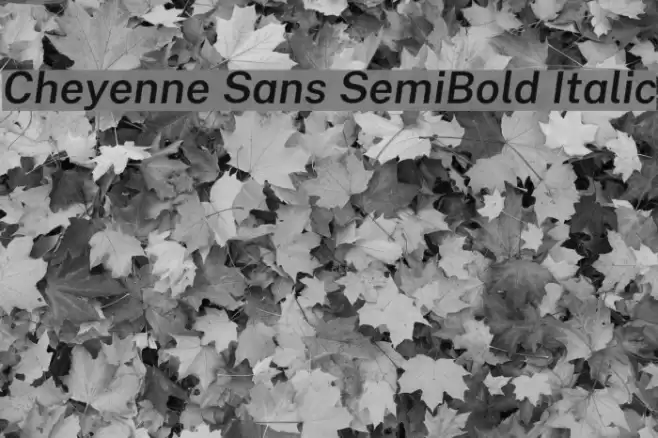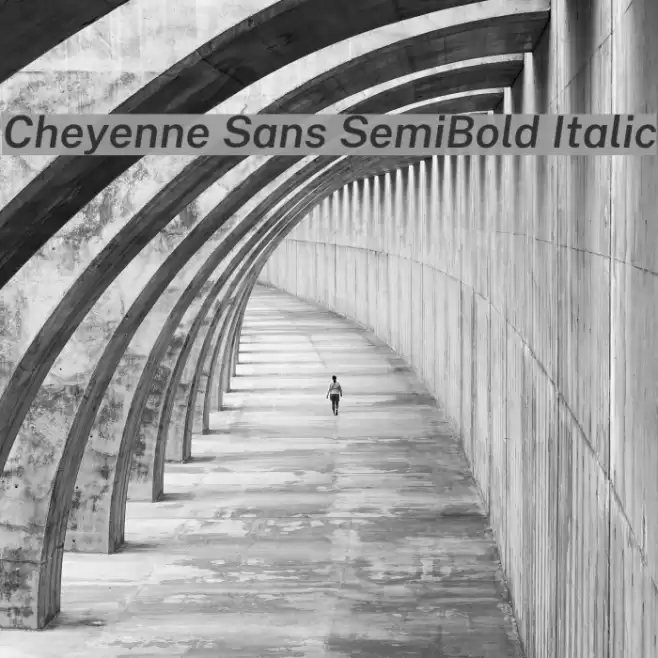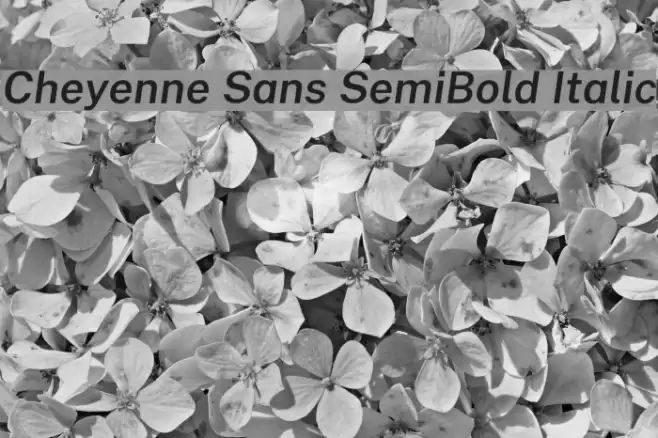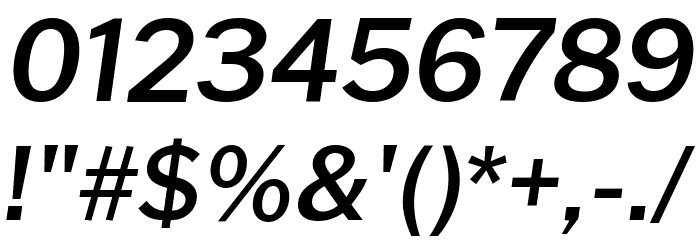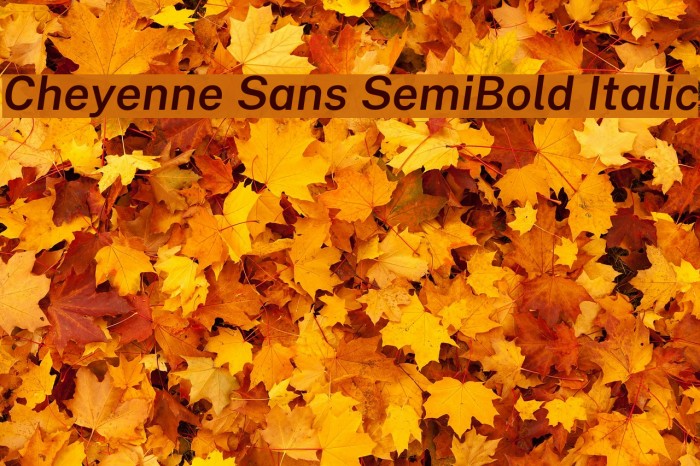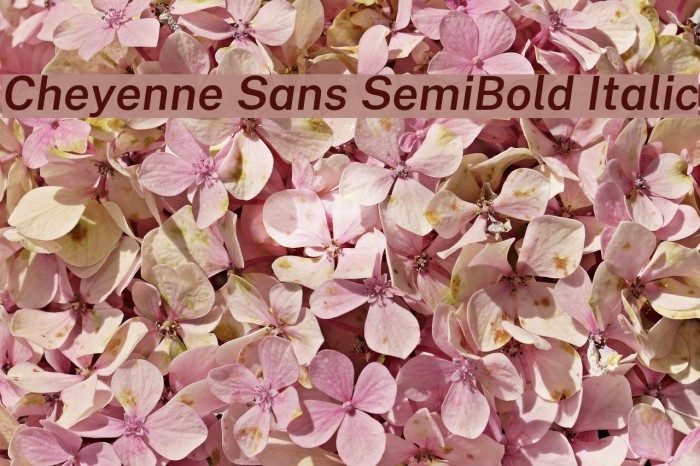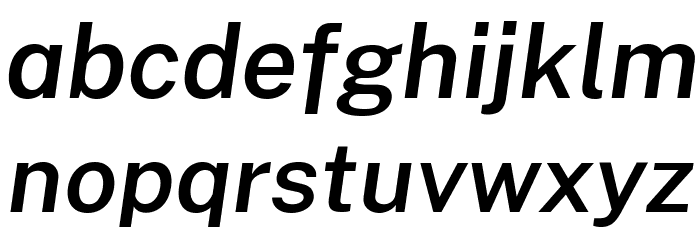
Cheyenne Sans SemiBold Italic Font
Cheyenne Sans SemiBold Italic Description
This font features a sleek, modern sans-serif design with a semi-bold weight and italic style. The characters are slightly slanted, giving a dynamic and forward-moving appearance. The strokes are consistent in thickness, providing a uniform look across all characters. The font maintains a clean and professional aesthetic, making it suitable for various applications. The uppercase and lowercase letters are well-proportioned, and the numerals are clear and easy to read. Special characters are included, ensuring versatility in usage.
A modern sans-serif font with semi-bold weight and italic style from Uncategorized fonts.
- Proposed Projects: Ideal for branding, advertising, and editorial design projects.